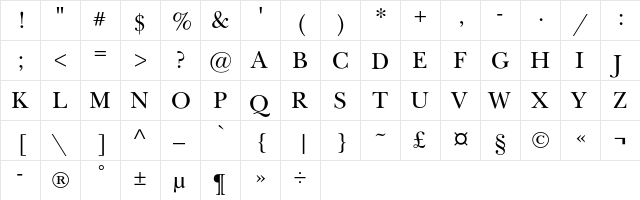
NewBaskervilleExpScC Roman Regular
Design Context for NewBaskervilleExpScC Roman Typeface
NewBaskervilleExpScC Roman offers clean, dependable letterforms without strong stylistic allegiance, making it a practical choice for designers who need flexibility.